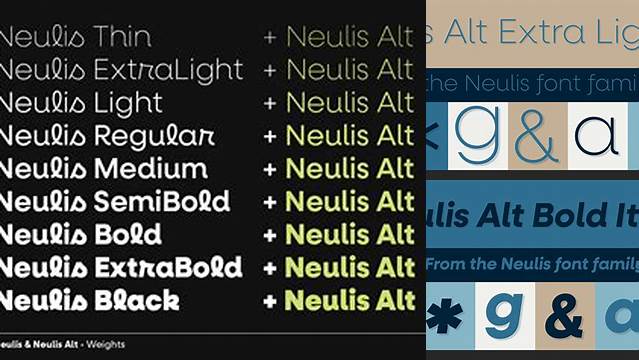
Hey guys! Ever stumbled upon a font that just clicks? That's Neulis Alt Bold for me. It's got this modern, yet timeless vibe that makes it perfect for a ton of different projects. Whether you're working on branding, web design, or even print materials, this font can really elevate your work. What sets Neulis Alt Bold apart is its versatility and readability. The clean lines and bold weight ensure your message gets across loud and clear, without sacrificing aesthetics. It's a real workhorse, and the fact that you can snag it for free? That's just icing on the cake! When starting a new design project, selecting the right font is crucial. Neulis Alt Bold provides a balance of modern appeal and functional readability, making it a strong contender for various applications. Its bold weight ensures that text stands out, capturing attention effectively, whether in headings or body text. Plus, its clean design contributes to a polished and professional look, enhancing the overall impact of your project. For those aiming to create visually appealing and readable designs, Neulis Alt Bold offers a valuable asset. Its availability as a free download further sweetens the deal, making it accessible to designers of all levels. This font is not just about aesthetics; it's about delivering a message with clarity and style.
Using Neulis Alt Bold in Graphic Design Projects
So, you've got Neulis Alt Bold installed and ready to roll – now what? Time to unleash its potential in your graphic design projects! This font is seriously versatile. It works great for headlines, logos, posters, and even body text (though maybe use a slightly lighter weight for longer paragraphs). The key is to experiment and see what looks best for your specific design. Pair it with other fonts to create interesting contrasts. A classic sans-serif or a slightly more decorative serif can work wonders. Just make sure the fonts complement each other and don't clash. And don't be afraid to play with color! Neulis Alt Bold looks fantastic in bold, vibrant colors, but it also shines in more muted, minimalist designs. When incorporating Neulis Alt Bold into your graphic designs, consider the overall tone and message you want to convey. Its bold weight and clean lines make it suitable for projects that require a strong and modern aesthetic. Use it in headings and titles to grab attention and establish a clear hierarchy. In logos, Neulis Alt Bold can project a sense of confidence and reliability. Experiment with different font sizes and spacing to achieve the desired visual impact. Also, think about the background and surrounding elements in your design. A well-chosen color palette and complementary imagery can enhance the font's effectiveness and create a cohesive and visually appealing composition. Remember, the goal is to use Neulis Alt Bold in a way that enhances your design and effectively communicates your message.
Neulis Alt Bold for Branding: Creating a Strong Identity
Let's talk branding, guys. Your brand's visual identity is super important, and the font you choose plays a HUGE role. Neulis Alt Bold can be a fantastic choice for creating a strong and memorable brand identity. Its bold and modern look can help your brand stand out from the competition. Think about using it in your logo, website, and marketing materials. Consistency is key when it comes to branding, so make sure you use Neulis Alt Bold consistently across all your platforms. This will help create a cohesive and recognizable brand image. And don't forget to consider your target audience! Does Neulis Alt Bold resonate with them? Does it convey the right message and values? These are all important questions to ask yourself. When using Neulis Alt Bold for branding, it's essential to consider how it aligns with your brand's personality and values. A font is more than just a visual element; it's a communication tool that conveys your brand's message and identity. Neulis Alt Bold's strong and modern appearance can be particularly effective for brands that want to project a sense of confidence, innovation, and reliability. Think about how the font will be used in different contexts, such as your website, social media profiles, and print materials. Ensure that it remains legible and visually appealing across all platforms. Also, consider the font's scalability. Will it look good in both large and small sizes? Testing the font in various applications will help you ensure that it consistently represents your brand in the best possible light. Ultimately, the goal is to use Neulis Alt Bold in a way that reinforces your brand's identity and helps you connect with your target audience.
Web Design with Neulis Alt Bold: Enhancing User Experience
Web design is all about user experience, right? And typography plays a huge role in that. Neulis Alt Bold can be a great choice for headings and titles on your website. Its readability and bold weight ensure that your message is clear and easy to understand. But don't go overboard! Too much bold text can be overwhelming. Use it strategically to highlight important information and guide the user's eye. Also, consider the font's loading time. Some fonts can slow down your website, which can negatively impact user experience. Optimize your font files to ensure they load quickly. And always test your website on different devices and browsers to make sure the font looks good across the board. When incorporating Neulis Alt Bold into your web design, it's crucial to prioritize readability and user experience. While its bold weight can make headings and titles stand out, it's important to use it sparingly in body text to avoid overwhelming the reader. Consider using a lighter weight or a different font altogether for longer paragraphs. Pay attention to the font's size and spacing, ensuring that it's easy to read on different screen sizes and devices. Also, think about the overall design of your website. Does Neulis Alt Bold complement the color scheme and imagery? Does it align with your brand's personality and values? A cohesive and well-designed website will not only look visually appealing but also provide a positive user experience, encouraging visitors to stay longer and engage with your content.
Neulis Alt Bold for Print Materials: Making a Statement
Don't forget about print! Even in today's digital world, print materials are still important. Neulis Alt Bold can make a real statement on your brochures, flyers, and business cards. Its bold and modern look will help your brand stand out in a tangible way. When designing for print, make sure to use high-resolution font files to avoid pixelation. And always proofread your work carefully before sending it to the printer! Nothing's worse than getting a stack of brochures with typos. Also, consider the paper stock you're using. Neulis Alt Bold can look different on different types of paper. Experiment to see what looks best for your project. When using Neulis Alt Bold for print materials, it's essential to consider the physical properties of the printed piece. The font's boldness and clarity can make a strong statement, but it's important to ensure that it remains legible and visually appealing in its printed form. Pay attention to the font's size and spacing, making sure that it's easy to read on the chosen paper stock. Also, think about the overall design of your print materials. Does Neulis Alt Bold complement the color scheme and imagery? Does it align with your brand's personality and values? A well-designed and professionally printed piece can leave a lasting impression on your audience, reinforcing your brand's identity and message. Remember to proofread your work carefully before sending it to the printer, as errors can be costly to correct.
Pairing Neulis Alt Bold with Other Fonts: Finding the Perfect Match
One of the keys to great typography is pairing fonts effectively. Neulis Alt Bold can work well with a variety of other fonts, but it's important to choose wisely. A classic sans-serif like Helvetica or Arial can create a clean and modern look. A slightly more decorative serif like Garamond or Times New Roman can add a touch of elegance. The key is to create contrast without clashing. Avoid pairing Neulis Alt Bold with fonts that are too similar in style or weight. This can create a muddy and unappealing look. Experiment and see what works best for your specific project. And don't be afraid to break the rules! Sometimes the most unexpected font pairings can be the most effective. When pairing Neulis Alt Bold with other fonts, it's essential to consider the overall tone and message you want to convey. The combination of fonts can create a unique visual identity that reflects your brand's personality and values. Experiment with different font pairings to see what works best for your specific project. Consider using a classic sans-serif for body text to ensure readability, while reserving Neulis Alt Bold for headings and titles to grab attention. A slightly more decorative serif can add a touch of elegance and sophistication, but it's important to ensure that it doesn't clash with Neulis Alt Bold's modern appearance. The key is to create a harmonious balance that enhances the overall design and effectively communicates your message. Don't be afraid to break the rules and try unexpected font pairings, but always prioritize readability and visual appeal.
Neulis Alt Bold Alternatives: Exploring Similar Fonts
Okay, so maybe Neulis Alt Bold isn't exactly what you're looking for. That's cool! There are tons of other fonts out there that offer a similar vibe. Fonts like Montserrat, Open Sans, and Lato are all great alternatives. They're clean, modern, and versatile. Plus, they're all available for free! Do your research and experiment to see which font works best for your specific project. You might even discover a new favorite! When exploring alternatives to Neulis Alt Bold, it's important to consider the specific characteristics that you appreciate about the font. Is it the bold weight, the clean lines, or the modern aesthetic? Identifying these key features will help you narrow down your search and find a font that meets your needs. Montserrat, Open Sans, and Lato are all excellent options that offer a similar vibe, but each has its unique nuances. Montserrat has a slightly more geometric feel, while Open Sans is known for its readability and versatility. Lato is a bit warmer and more approachable. Experiment with these different fonts to see which one best complements your design and effectively communicates your message. Don't be afraid to explore other font families as well, as you might discover a hidden gem that perfectly captures the essence of your project.
The Legality of Free Font Downloads: Understanding Licensing
This is super important, guys! Just because a font is available for free download doesn't mean you can use it however you want. Always, always check the license agreement before using a free font. Some fonts are free for personal use only, while others are free for commercial use. If you're using a font for a business project, you need to make sure you have the right license. Otherwise, you could be facing some serious legal trouble. When it comes to free font downloads, understanding licensing is crucial. A font's license agreement outlines the terms and conditions under which you can use the font. Some fonts are released under open-source licenses, which allow for free use, modification, and distribution. Others are free for personal use only, meaning you can't use them for commercial projects. Still others require you to purchase a license for commercial use. Before using a free font, carefully review the license agreement to ensure that you're complying with its terms. If you're unsure about the licensing terms, it's always best to err on the side of caution and contact the font's creator or distributor for clarification. Using a font without the proper license can result in legal consequences, so it's important to be diligent and responsible.
Troubleshooting Font Installation Issues: Getting Neulis Alt Bold to Work
Sometimes, things don't go as planned. You might download and install Neulis Alt Bold, but it doesn't show up in your design program. Ugh, frustrating! Here are a few things to try: Restart your computer. This is often the simplest solution and can resolve many font-related issues. Make sure your design program is up to date. Older versions might not be compatible with newer fonts. Clear your font cache. This can sometimes help resolve conflicts between fonts. If all else fails, try reinstalling the font. If you're still having trouble, consult your design program's documentation or contact their support team. Troubleshooting font installation issues can be frustrating, but there are several steps you can take to resolve the problem. Start by restarting your computer, as this can often clear up minor software glitches. Next, ensure that your design program is up to date, as older versions might not be compatible with newer fonts. If the font still isn't showing up, try clearing your font cache. This can help resolve conflicts between fonts and allow your system to recognize the newly installed font. If none of these steps work, try reinstalling the font. Make sure to download the font from a reputable source and follow the installation instructions carefully. If you're still experiencing issues, consult your design program's documentation or contact their support team for assistance. They might be able to provide more specific troubleshooting steps based on your system and software configuration.
The Future of Typography: Trends and Innovations
Typography is constantly evolving, guys. New fonts and design techniques are emerging all the time. It's important to stay up-to-date on the latest trends and innovations. Variable fonts are a big trend right now. These fonts allow you to adjust various parameters, like weight and width, to create a custom look. 3D typography is also gaining popularity. This technique adds depth and dimension to your designs. And of course, accessibility is becoming increasingly important. Designers are focusing on creating fonts that are easy to read for people with disabilities. The future of typography is dynamic and exciting, with new trends and innovations emerging constantly. Variable fonts are revolutionizing the way we design with type, allowing for greater flexibility and customization. These fonts enable designers to adjust various parameters, such as weight, width, and slant, to create a wide range of styles within a single font file. 3D typography is also gaining traction, adding depth and dimension to designs. This technique can create visually stunning effects that capture the viewer's attention. Accessibility is another key focus, with designers prioritizing the creation of fonts that are easy to read for people with disabilities. This includes considering factors such as contrast, letter spacing, and font size. As technology continues to evolve, typography will undoubtedly play an even more significant role in shaping our visual communication.
Neulis Alt Bold: A Font for the Modern Designer
In conclusion, Neulis Alt Bold is a fantastic font for any modern designer. It's versatile, readable, and stylish. Plus, it's free! Whether you're working on branding, web design, or print materials, this font can help you create stunning designs that stand out from the crowd. So go ahead and download Neulis Alt Bold today! You won't regret it. Neulis Alt Bold stands out as a valuable asset for modern designers, offering a blend of versatility, readability, and style. Its availability as a free download makes it accessible to designers of all levels, enabling them to create stunning designs without breaking the bank. Whether you're working on branding projects, web design, or print materials, Neulis Alt Bold can help you elevate your work and capture the attention of your audience. Its bold weight and clean lines ensure that your message is clear and impactful, while its modern aesthetic adds a touch of sophistication. Don't hesitate to download Neulis Alt Bold and explore its potential in your next design project. You'll be amazed at how it can transform your creations and help you achieve your design goals.
Where to Find Inspiration for Using Neulis Alt Bold
Need some ideas on how to use Neulis Alt Bold? Check out design blogs, Behance, and Dribbble for inspiration. See how other designers are using the font in their projects. Analyzing successful designs can help you develop your own unique style. Also, don't be afraid to experiment and try new things! The best way to learn is by doing. Looking for inspiration is a crucial part of the design process, and there are numerous resources available to spark your creativity. Design blogs are a great place to discover new trends and techniques, while platforms like Behance and Dribbble showcase the work of talented designers from around the world. By browsing these platforms, you can see how other designers are using Neulis Alt Bold in their projects and gain insights into its potential applications. Pay attention to the font pairings, color palettes, and overall design aesthetics that resonate with you. Analyzing successful designs can help you develop your own unique style and approach. Remember, inspiration is not about copying, but rather about learning and adapting ideas to create something new and original. Don't be afraid to experiment and try new things, as this is the best way to discover your own creative voice.
Creating a Logo with Neulis Alt Bold: Tips and Tricks
Designing a logo? Neulis Alt Bold can be a great choice! Keep it simple and memorable. A good logo should be easy to recognize and remember. Use strong, bold colors. This will help your logo stand out. Consider the font's kerning and tracking. These adjustments can make a big difference in the overall look of your logo. Get feedback from others. It's always helpful to get a fresh perspective on your work. Creating a logo with Neulis Alt Bold can be a rewarding experience, but it requires careful consideration and attention to detail. The key is to keep it simple and memorable. A good logo should be easy to recognize and remember, even at a glance. Use strong, bold colors to make your logo stand out and capture attention. Pay close attention to the font's kerning and tracking, as these adjustments can significantly impact the overall look and feel of your logo. Experiment with different letter combinations and arrangements to find the perfect balance. Don't be afraid to get feedback from others, as a fresh perspective can often reveal areas for improvement. Remember, your logo is the face of your brand, so it's important to invest the time and effort necessary to create a design that accurately reflects your brand's identity and values.
Optimizing Neulis Alt Bold for Different Screen Sizes
With so many different screen sizes out there, it's important to optimize your fonts for each one. Use responsive design techniques to ensure your text looks good on all devices. Consider using different font sizes for different screen sizes. This will help maintain readability. Test your website on different devices to make sure your fonts are rendering correctly. Optimizing Neulis Alt Bold for different screen sizes is crucial for ensuring a positive user experience across all devices. With the proliferation of smartphones, tablets, and desktop computers, it's essential to adopt responsive design techniques that adapt your website's layout and typography to the user's screen size. Consider using different font sizes for different screen sizes to maintain readability. Smaller font sizes might be appropriate for mobile devices, while larger font sizes can be used on desktop computers. Test your website on different devices to ensure that your fonts are rendering correctly and that the overall design is visually appealing. Pay attention to the font's kerning and tracking, as these adjustments can affect readability on smaller screens. By optimizing Neulis Alt Bold for different screen sizes, you can ensure that your website is accessible and engaging for all users, regardless of their device.
Using Neulis Alt Bold in Social Media Graphics
Social media is a visual medium, so your graphics need to be eye-catching. Neulis Alt Bold can help you create social media graphics that stand out from the crowd. Use bold colors and strong typography. This will help your graphics grab attention. Keep your text concise and easy to read. People are scrolling quickly, so you need to get your message across quickly. Use high-quality images. This will make your graphics look more professional. Using Neulis Alt Bold in social media graphics can help you create visually appealing content that captures attention and drives engagement. Social media is a visual medium, so it's essential to use eye-catching graphics that stand out from the crowd. Incorporate bold colors and strong typography to make your graphics more impactful. Keep your text concise and easy to read, as people are often scrolling quickly through their feeds. Use high-quality images to create a professional and polished look. Consider using Neulis Alt Bold in your headlines and captions to draw attention to your key messages. Experiment with different font sizes and arrangements to find the perfect balance. By using Neulis Alt Bold effectively in your social media graphics, you can enhance your brand's visibility and connect with your target audience.
Creating Eye-Catching Headlines with Neulis Alt Bold
Headlines are super important! They're the first thing people see, so they need to be attention-grabbing. Neulis Alt Bold is perfect for creating eye-catching headlines. Use a large font size. This will make your headline stand out. Use strong, action-oriented words. This will make your headline more engaging. Keep your headline concise and to the point. People are busy, so you need to get their attention quickly. Creating eye-catching headlines is essential for attracting readers and conveying your message effectively. Neulis Alt Bold is an excellent choice for crafting headlines that grab attention and make a lasting impression. Use a large font size to make your headline stand out from the surrounding text. Incorporate strong, action-oriented words to make your headline more engaging and compelling. Keep your headline concise and to the point, as people are often scanning content quickly. Experiment with different font sizes and arrangements to find the perfect balance. Consider using a contrasting color to further emphasize your headline. By using Neulis Alt Bold effectively in your headlines, you can increase readership and effectively communicate your key messages.
The Psychology of Fonts: How Neulis Alt Bold Affects Perception
Did you know that fonts can actually affect how people perceive your message? It's true! Neulis Alt Bold conveys a sense of strength, modernity, and confidence. This makes it a great choice for brands that want to project those qualities. Consider the psychology of fonts when choosing a font for your project. It can make a big difference in how your message is received. The psychology of fonts is a fascinating field that explores how different typefaces can affect people's perceptions and emotions. Neulis Alt Bold, with its strong, clean lines and bold weight, conveys a sense of strength, modernity, and confidence. This makes it an excellent choice for brands that want to project those qualities. When choosing a font for your project, it's important to consider the psychology of fonts and how it can impact your message. A font can evoke a range of emotions, from trust and reliability to creativity and innovation. By selecting a font that aligns with your brand's personality and values, you can effectively communicate your message and connect with your target audience on a deeper level. Consider the overall tone and message you want to convey, and choose a font that supports and enhances those qualities. The psychology of fonts is a powerful tool that can help you create more impactful and effective designs.
Maximizing Readability with Neulis Alt Bold: Tips for Body Text
While Neulis Alt Bold is great for headlines, it might be a bit too bold for long paragraphs of body text. If you want to use it for body text, here are a few tips: Use a smaller font size. This will make the text easier to read. Increase the line spacing. This will give the text more room to breathe. Use a slightly lighter weight. This will reduce the overall boldness of the text. Maximizing readability is essential for ensuring that your message is easily understood and engaging for your audience. While Neulis Alt Bold is an excellent choice for headlines, its bold weight might be overwhelming for long paragraphs of body text. If you want to use it for body text, there are several tips you can follow to improve readability. Use a smaller font size to make the text easier to read. Increase the line spacing to give the text more room to breathe and reduce the visual density. Consider using a slightly lighter weight of Neulis Alt Bold to reduce the overall boldness of the text. Pay attention to the font's kerning and tracking, as these adjustments can affect readability. By implementing these tips, you can effectively use Neulis Alt Bold for body text while maintaining optimal readability.
The Importance of Kerning and Tracking with Neulis Alt Bold
Kerning and tracking are two important typographic adjustments that can significantly impact the look and feel of your text. Kerning refers to the spacing between individual letters, while tracking refers to the overall spacing between all letters in a word or phrase. With Neulis Alt Bold, it's especially important to pay attention to kerning and tracking, as its bold weight can make spacing issues more noticeable. Adjust the kerning to ensure that the spacing between letters is visually balanced and consistent. Adjust the tracking to create a more open and airy feel, or to tighten up the spacing for a more compact look. The importance of kerning and tracking cannot be overstated when working with Neulis Alt Bold or any other typeface. Kerning refers to the adjustment of spacing between individual letter pairs, while tracking adjusts the overall spacing uniformly across a range of characters. These subtle tweaks can dramatically enhance the readability and visual appeal of your text. With Neulis Alt Bold, the bold weight amplifies any inconsistencies in spacing, making meticulous kerning and tracking essential. By fine-tuning these parameters, you can achieve a harmonious balance, ensuring that each letter seamlessly integrates with its neighbors. This attention to detail elevates the professionalism and aesthetic quality of your designs, underscoring the importance of mastering kerning and tracking in typography.
Color Combinations That Complement Neulis Alt Bold
Choosing the right color combinations can make your designs even more impactful. Neulis Alt Bold works well with a variety of colors, but here are a few suggestions: Black and white: This classic combination is always a winner. Bold, primary colors: These colors can help your designs stand out. Muted, earthy tones: These tones can create a more sophisticated and understated look. Selecting the right color combinations is paramount for creating visually appealing and impactful designs with Neulis Alt Bold. This typeface pairs harmoniously with a variety of palettes, each evoking a distinct mood and aesthetic. A timeless choice is the classic black and white combination, offering a clean and sophisticated look that emphasizes the font's bold structure. For designs that demand attention, vibrant primary colors provide a striking contrast, injecting energy and excitement. Alternatively, muted earthy tones can create a sense of understated elegance, lending a touch of refinement to your typography. The key lies in understanding the psychological impact of colors and how they interact with the font's inherent characteristics, ensuring that your color choices amplify the message and enhance the overall visual harmony of your design.
Creating a Consistent Brand Voice with Neulis Alt Bold
Your brand voice is how you communicate with your audience. It should be consistent across all of your platforms. Neulis Alt Bold can help you create a consistent brand voice by providing a visual anchor. Use the font consistently in your logo, website, and marketing materials. This will help create a cohesive and recognizable brand image. Establishing a consistent brand voice is paramount for building trust, recognition, and loyalty among your target audience. Neulis Alt Bold can serve as a powerful visual anchor in this process, lending its distinctive personality to your brand's communications. By consistently incorporating Neulis Alt Bold across your logo, website, marketing materials, and social media presence, you create a cohesive and recognizable brand image. This visual consistency reinforces your brand identity, making it easier for customers to identify and connect with your message. Moreover, a unified brand voice conveys professionalism and attention to detail, enhancing your credibility and establishing a strong foundation for long-term relationships with your audience. Therefore, strategic use of Neulis Alt Bold can be instrumental in crafting a compelling and memorable brand identity.
The Impact of Font Choice on User Experience
The font you choose can have a big impact on user experience. A readable font can make your website or app more enjoyable to use. An unreadable font can frustrate users and make them leave. Choose fonts that are easy to read and that complement your overall design. The impact of font choice on user experience is profound, shaping how users perceive and interact with your digital interfaces. A carefully selected font can enhance readability, making content more accessible and enjoyable to consume. Conversely, an ill-chosen font can frustrate users, leading to eye strain and a negative overall experience. Therefore, prioritizing readability is paramount when selecting fonts for your website or app. Choose typefaces that are clear, well-spaced, and optimized for various screen sizes and resolutions. Additionally, consider how the font complements your overall design aesthetic, ensuring that it aligns with your brand's personality and enhances the visual harmony of your interface. By prioritizing font choice, you can create a user-centered design that fosters engagement and promotes a positive user experience.
Where to Learn More About Typography Best Practices
Want to become a typography master? There are tons of resources available online and in libraries. Check out books on typography. Take online courses. Read design blogs. Attend design conferences. The more you learn, the better your designs will be! The quest for mastery in typography necessitates continuous learning and exploration of best practices. Fortunately, a wealth of resources awaits aspiring typographers, both online and in traditional libraries. Delve into the vast realm of typography books, offering insights into the history, theory, and practical application of type. Enroll in online courses taught by industry experts, providing structured learning paths and hands-on exercises. Immerse yourself in the vibrant world of design blogs, staying abreast of the latest trends, techniques, and innovative approaches to typography. Attend design conferences and workshops, connecting with fellow enthusiasts and gaining invaluable knowledge from seasoned professionals. The more you invest in your typographic education, the more refined your design sensibilities will become, empowering you to create visually compelling and impactful communications.
The Importance of Testing Your Font Choices
Always test your font choices before launching your project. See how the fonts look on different devices and browsers. Get feedback from others. Testing your font choices is crucial for ensuring that your designs are visually effective and accessible to your target audience. Before launching your project, take the time to test how your fonts render on different devices and browsers. This will help you identify any potential compatibility issues or readability problems. Seek feedback from others, gathering diverse perspectives on your font choices. Do they find the fonts easy to read? Do the fonts align with the overall tone and message of your design? By conducting thorough testing, you can make informed decisions about your font selections, ensuring that your designs are visually appealing, user-friendly, and effectively communicate your intended message.
Advanced Typography Techniques with Neulis Alt Bold
Once you've mastered the basics, you can start exploring advanced typography techniques. Try using ligatures to create more interesting letter combinations. Experiment with different font weights and styles. Use drop caps to add visual interest to your designs. Once you have a solid grasp of the fundamentals of typography, you can begin exploring advanced techniques to elevate your designs to new heights. Experiment with ligatures, which are special characters that combine two or more letters into a single glyph, creating unique and visually appealing letter combinations. Delve into the nuances of different font weights and styles, understanding how they can be used to create emphasis, hierarchy, and visual interest. Incorporate drop caps, which are enlarged initial letters that extend below the baseline of the first line of a paragraph, adding a touch of elegance and sophistication to your designs. By mastering these advanced techniques, you can transform your typography from functional to expressive, creating captivating and memorable visual communications.
Common Typography Mistakes to Avoid with Neulis Alt Bold
Even experienced designers make typography mistakes sometimes. Here are a few common mistakes to avoid: Using too many different fonts. This can create a cluttered and confusing look. Using fonts that are too similar. This can make your designs look bland and uninspired. Ignoring kerning and tracking. This can make your text look unprofessional. Even seasoned designers are susceptible to making typography mistakes, underscoring the importance of continuous learning and refinement. One common pitfall is using too many different fonts in a single design, resulting in a cluttered and confusing visual hierarchy. Conversely, using fonts that are too similar can lead to a bland and uninspired aesthetic. Neglecting kerning and tracking, which are crucial for achieving optimal letter spacing and readability, can detract from the professionalism of your typography. To avoid these common mistakes, exercise restraint in your font selections, ensuring that each typeface serves a specific purpose. Pay meticulous attention to kerning and tracking, fine-tuning the spacing between letters to create a harmonious and visually pleasing composition. By avoiding these common pitfalls, you can elevate the quality of your typography and create designs that are both aesthetically pleasing and effectively communicate your intended message.
Resources for Downloading Neulis Alt Bold Safely and Legally
Finding a safe and legal source for downloading Neulis Alt Bold is essential. Stick to reputable font foundries and design resources. Always check the license agreement before downloading. If you're unsure, contact the designer directly to clarify. Ensuring a safe and legal download of Neulis Alt Bold is paramount for protecting your computer and respecting intellectual property rights. Prioritize downloading from reputable font foundries and established design resources, which typically vet their offerings for malicious software and licensing compliance. Before initiating the download, meticulously review the license agreement to understand the terms of use and any restrictions that may apply. If you have any doubts or uncertainties regarding the licensing terms, err on the side of caution and directly contact the font's designer or distributor for clarification. By adhering to these guidelines, you can minimize the risk of downloading harmful files and ensure that your use of Neulis Alt Bold is fully compliant with its licensing terms.
How Neulis Alt Bold Can Improve Your Design Workflow
Neulis Alt Bold can streamline your design workflow by providing a versatile and reliable font choice. Its readability and bold weight make it a great choice for headlines and titles. Its clean and modern look can complement a variety of design styles. Streamlining your design workflow is essential for maximizing efficiency and creativity. Neulis Alt Bold can play a pivotal role in this process by providing a versatile and dependable font choice. Its inherent readability and bold weight make it an ideal candidate for headlines and titles, instantly grabbing attention and establishing a clear visual hierarchy. Moreover, its clean and modern aesthetic seamlessly complements a diverse range of design styles, making it a valuable asset for various projects. By incorporating Neulis Alt Bold into your design toolkit, you can reduce the time spent searching for the perfect font and focus on the creative aspects of your work. This streamlined workflow empowers you to produce high-quality designs with greater efficiency and consistency.